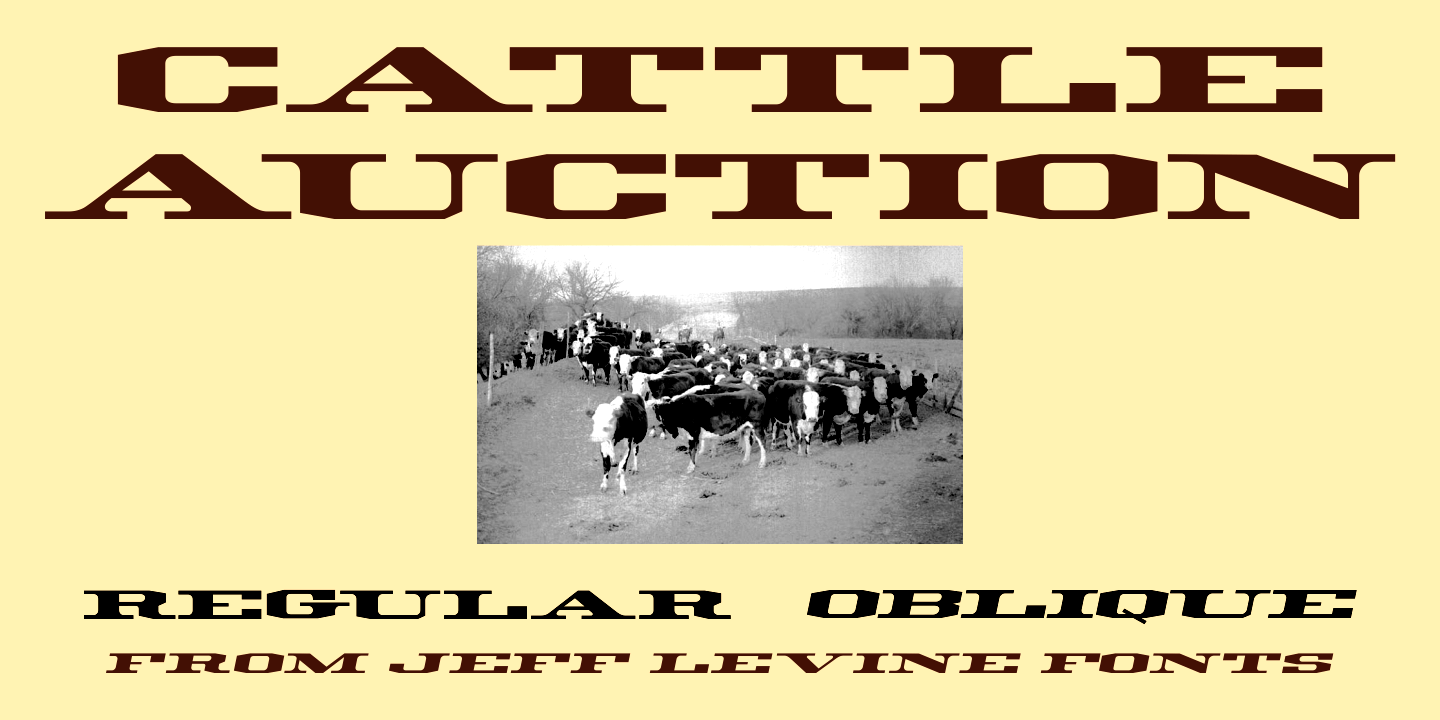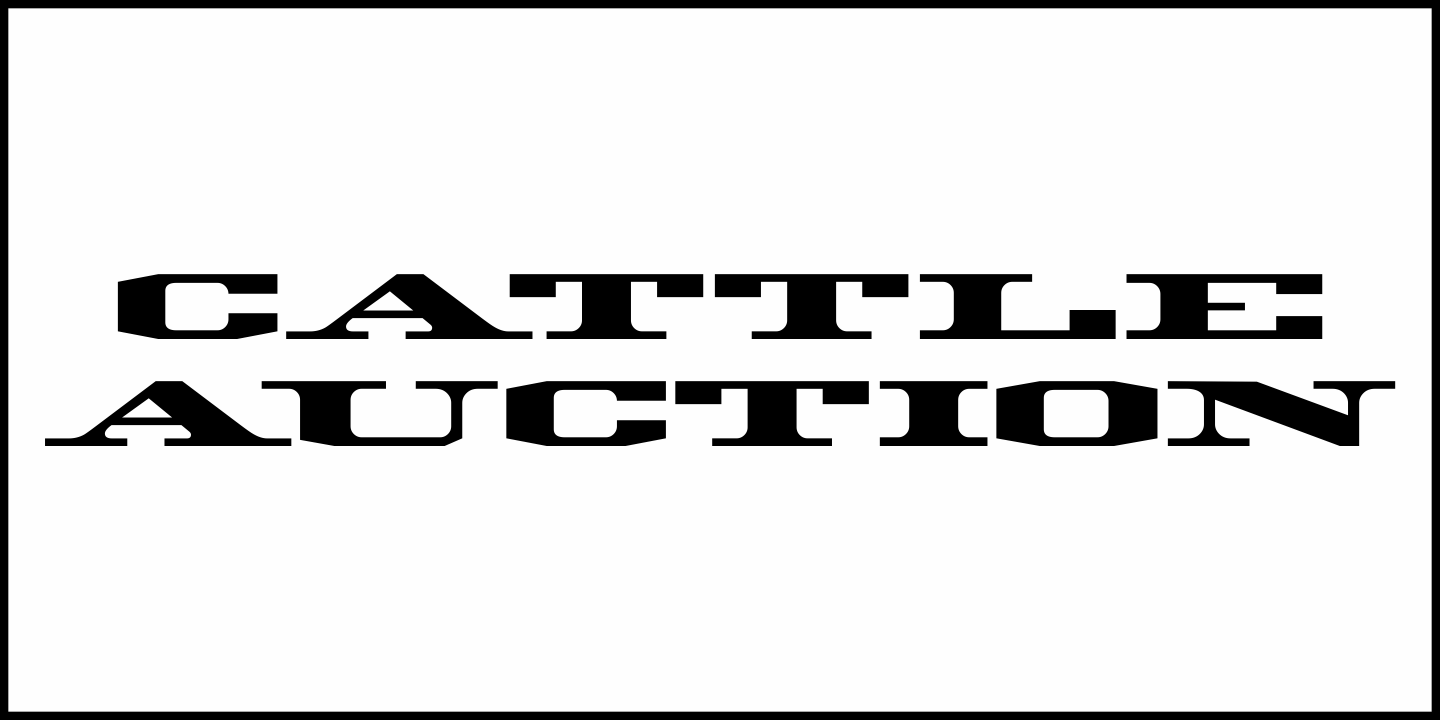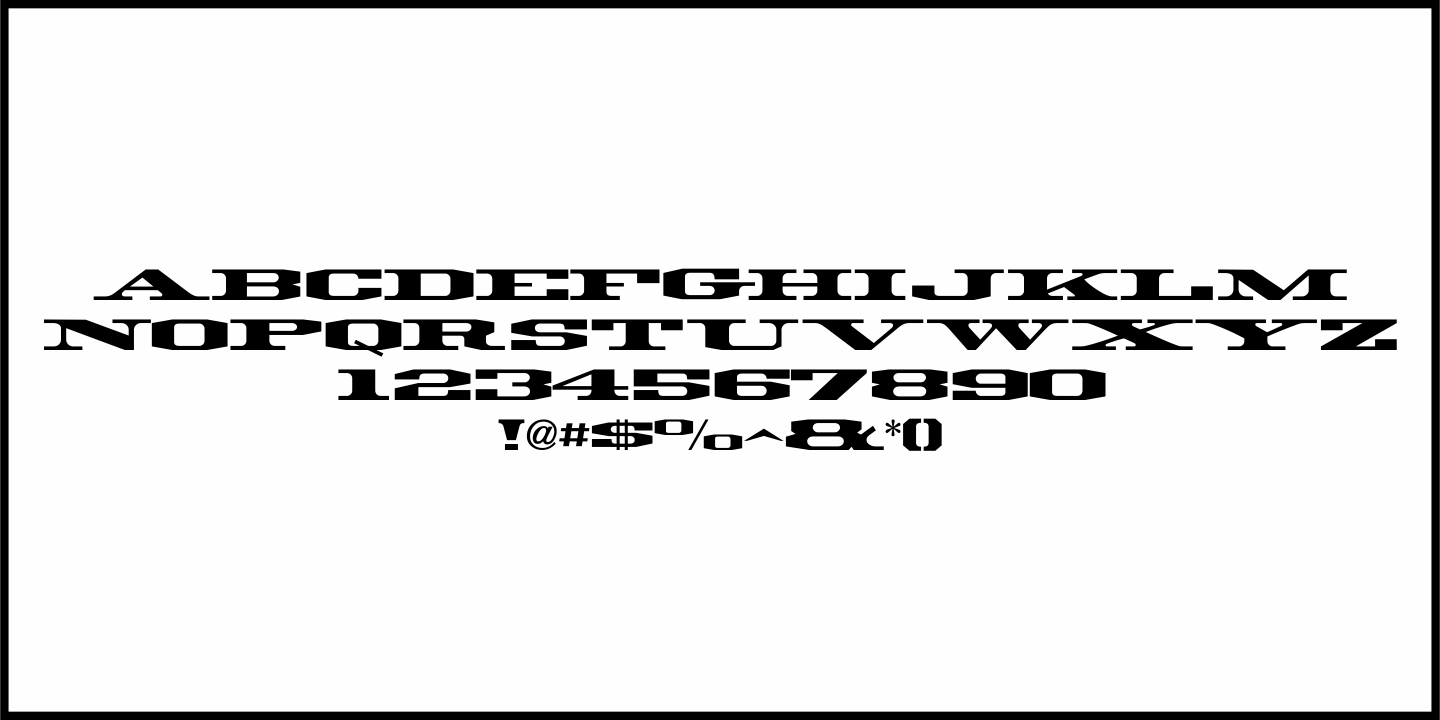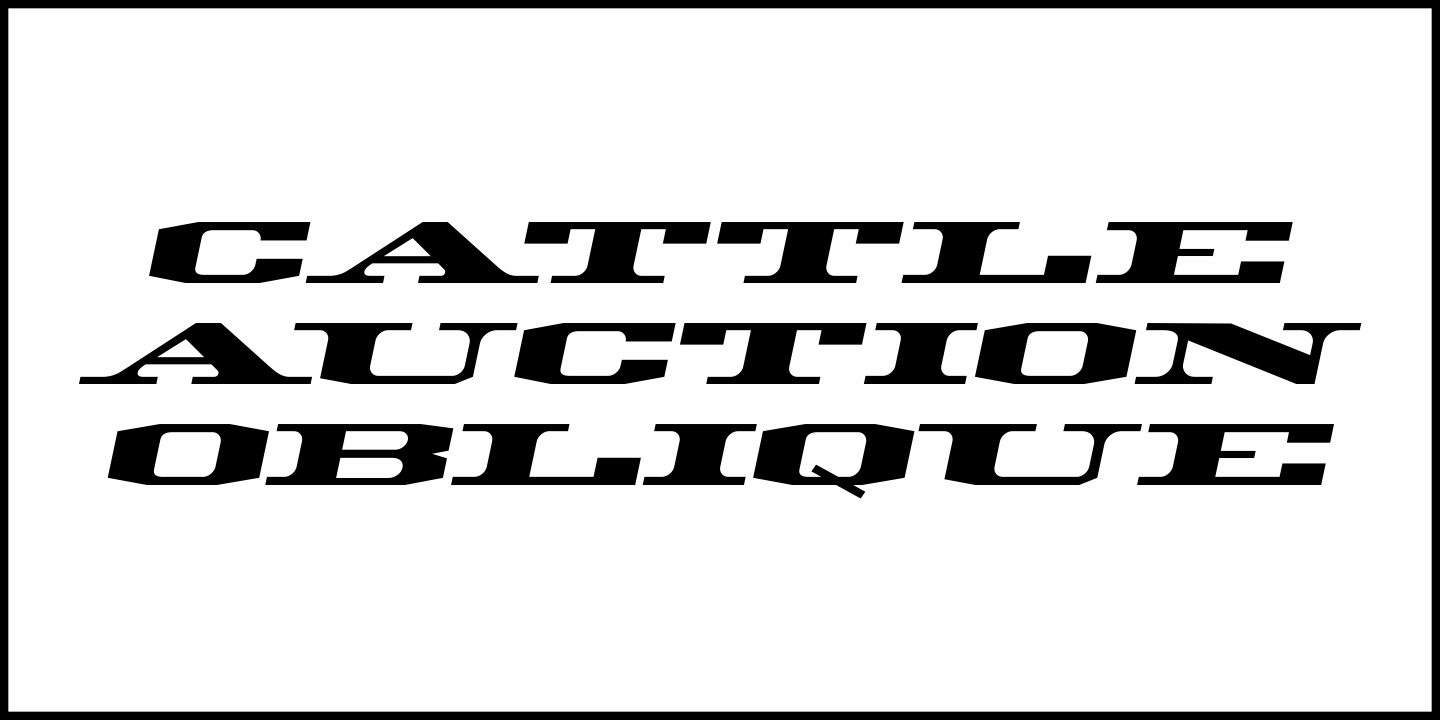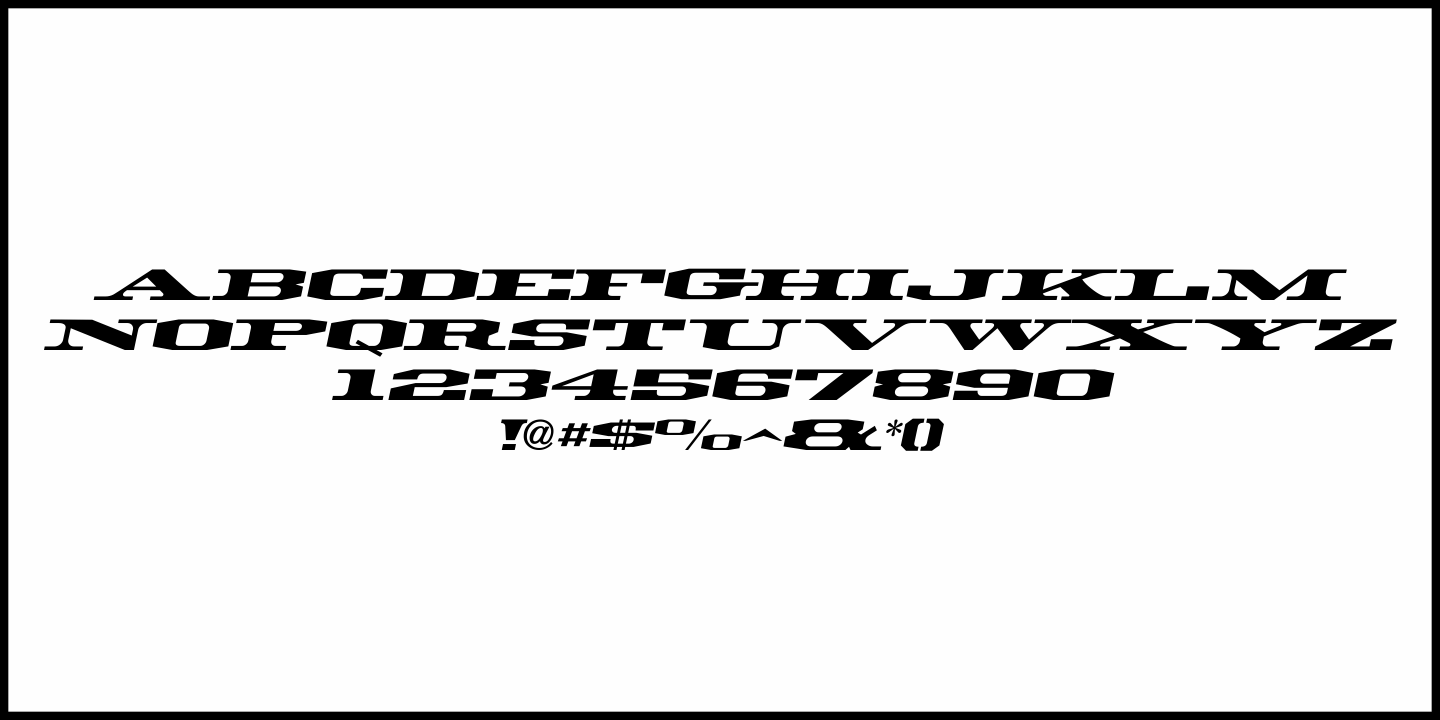
Cattle Auction
A wide, chamfered slab serif lettering design found in the 1907 book "Lettering, Drawing" from the International Correspondence Schools inspired Cattle Auction JNL, which is available in both regular and oblique versions.
Originally called "Railroad Block", the hand lettering is reminiscent of wood type used on old Wild West posters.